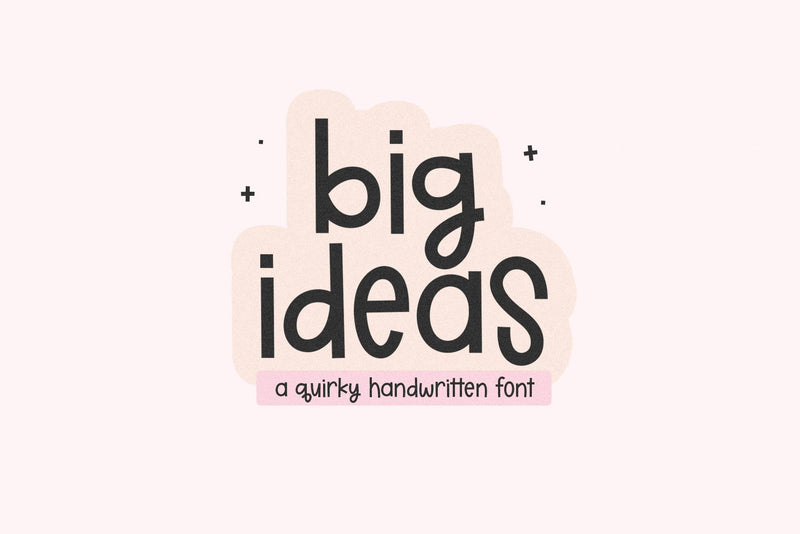
Big Ideas - Fun Handwritten Font
Big Ideas is a cute handwritten font.
This font is perfect for cricut projects, teachers, goodnotes, planners, stickers, quotes and more!